The graffiti fonts in today’s scenario have gained so much popularity in the professional businesses all due to the spectacular rise of street art as a serious creative force. The graffiti fonts are so widespread that its artistically styled typography is used for creativity even in the urban artwork. Here are 14 such awesome graffiti fonts that suits best for stylish designers. Have a look and enjoy!
1. PW Graffiti
PW Graffiti features a full set of capital letters and numerals with an assortment of characters and decorative glyphs.
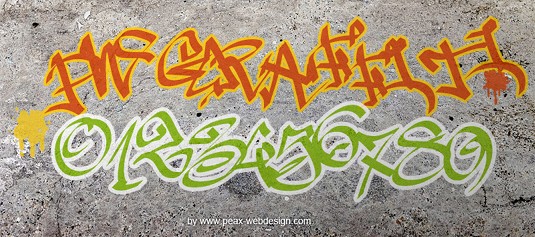
2. Fozzie Got A Posse Typeface
Fozzie Got A Posse Typeface is an organic font based on graffiti tagging by 29 years old graphic designer, Thiago from Sao Paula, Brazil.
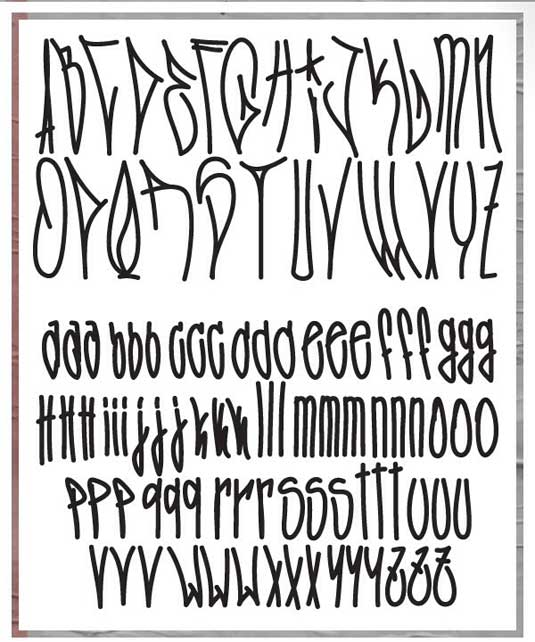
3. Urban Decay
Urban Decay is a handmade brush stroke font inspired by Zofos’ love of graffiti, urban exploration, street calligraphy and inner city living.
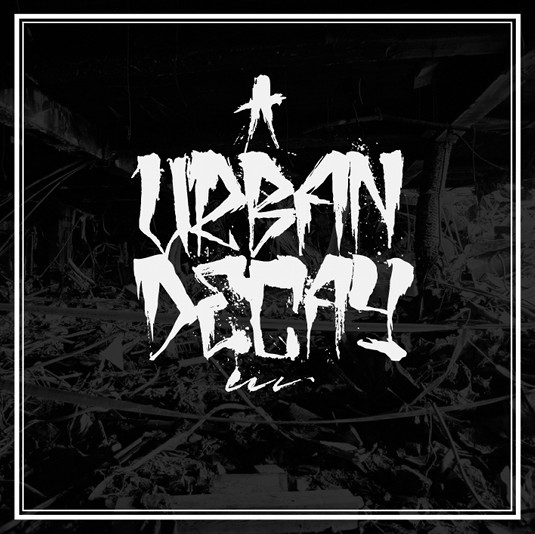
4. Wassimo Graffiti
Wassimo Graffiti font is completely free for personal and commercial use that comes in caps only, but in outline and filled forms.
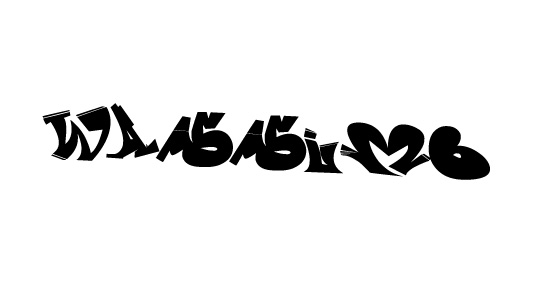
5. Stylin’ BRK
Stylin’ BRK was the first font created by graphic and web designer Beraka. This is by far the most popular graffiti download fonts of Beraka.
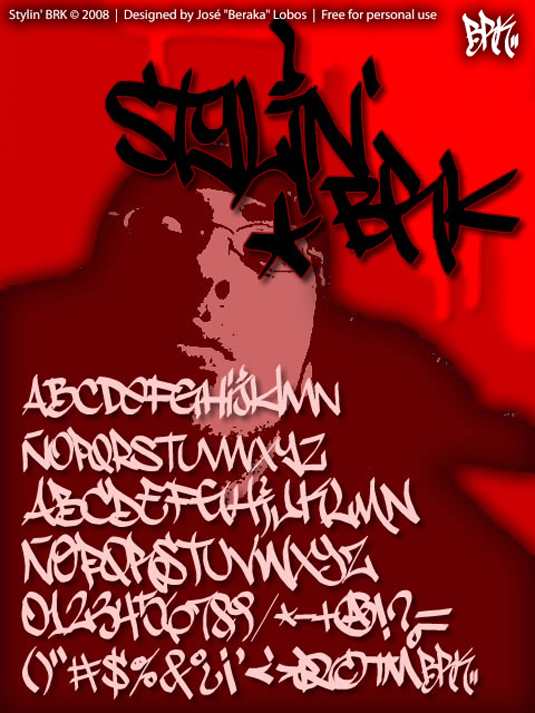
6. A Dripping Marker
A Dripping Marker is a font created by designer Wick van den Belt that comes complete with a full set of upper and lowercase characters, numbers and selection of special characters.
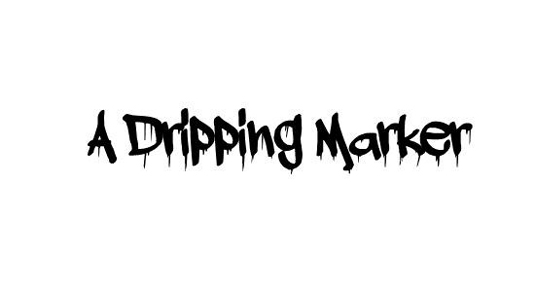
7. Street Writer
Street Writer is the best font by Noah that gives your graffiti illustrations an authentic feel. It includes full set of uppercase letters and numbers.
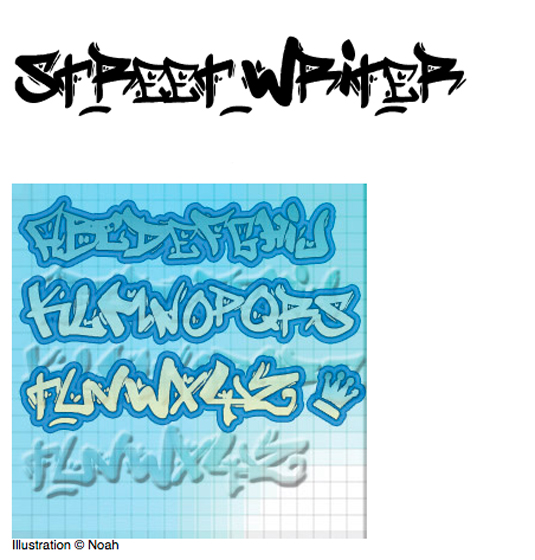
8. El&font Block
El&font Block font is designed by designer Jérôme Delage which is an awesome free graffiti font that has been downloaded over seven million times.
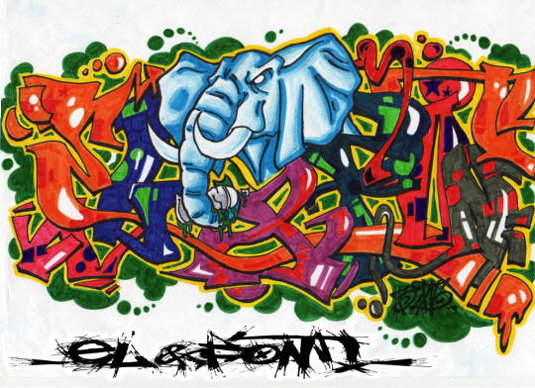
9. Urban Jungle
Urban Jungle is designed by designer Kevin Christopher. This font is big, eye-catchy and bold.
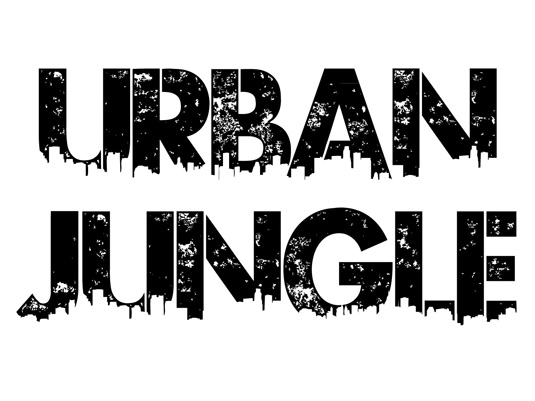
10. Nosegrind
Nosegrind is a free graffiti font designed by game designer, editor and historian Dave Nalle. He describes this font as ‘Nosegrind is based on skate-culture graffiti gleaned from various samples of similar style found on walls in Austin and online’.
11. Brock Vandalo
Brock Vandalo is designed by a graphic design student Luis Marques aka Brock Marques. The design features rounded shaped characters with thin ends and hairpin bends.
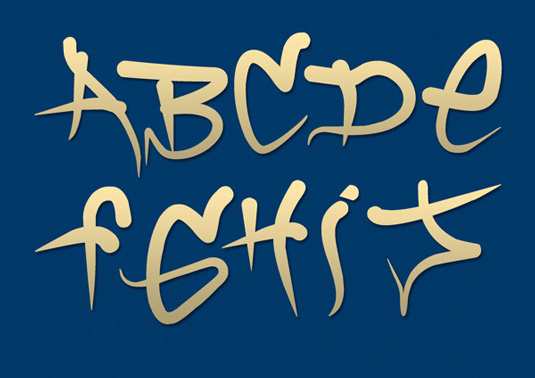
12. Graffonti
Graffonti is a cool 3D drop font created by 30-year-old programmer Xero.
13. Please show me love
Please show me love is a graffiti font designed by Andrew Hart who is an author of Dirt 2, a site dedicated to design resources.
14. Take Warning
Take Warning font is created by Skyhaven, aka Alex Tomlinson. This font is free for personal use but requires donation for commercial use.